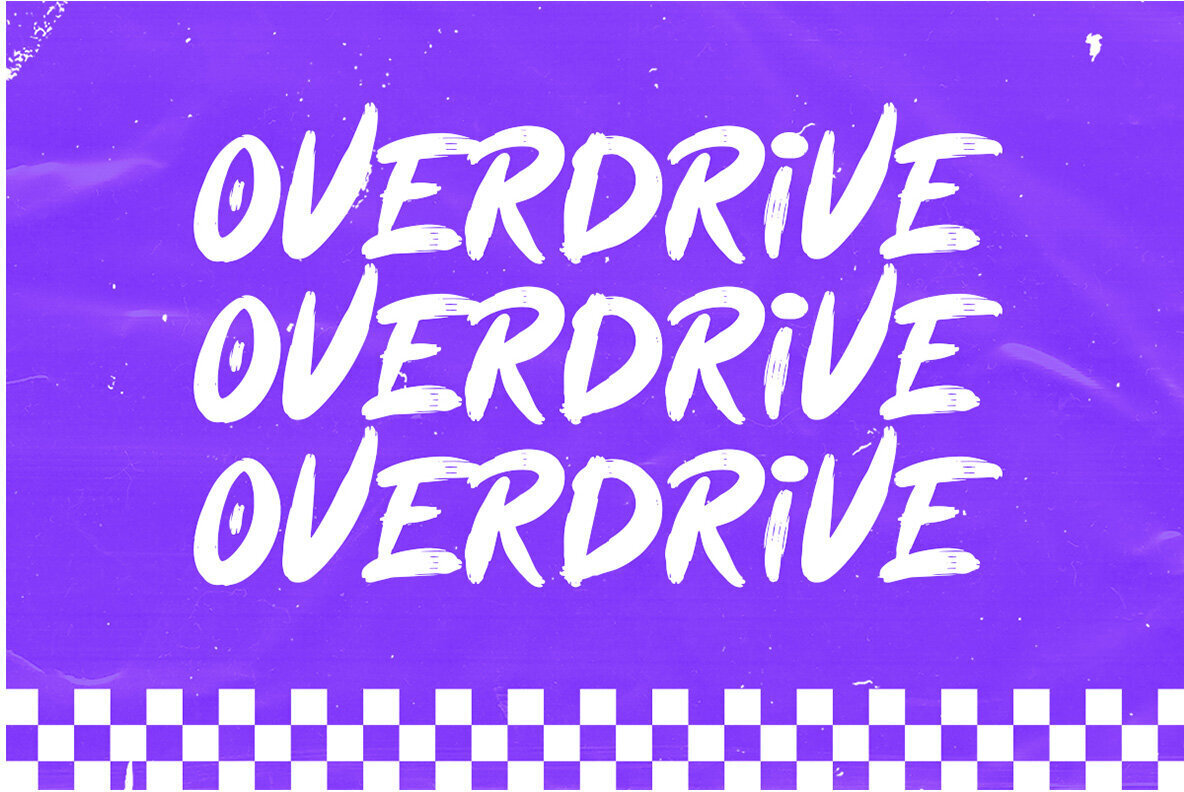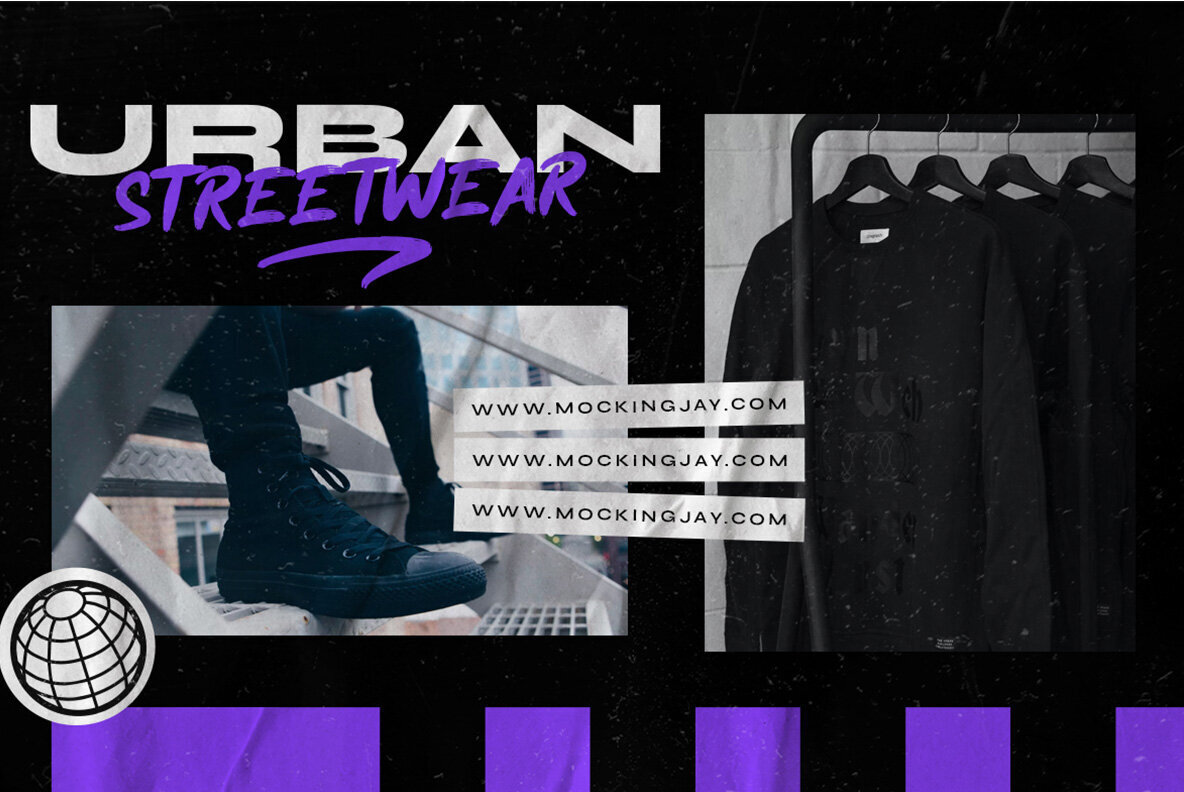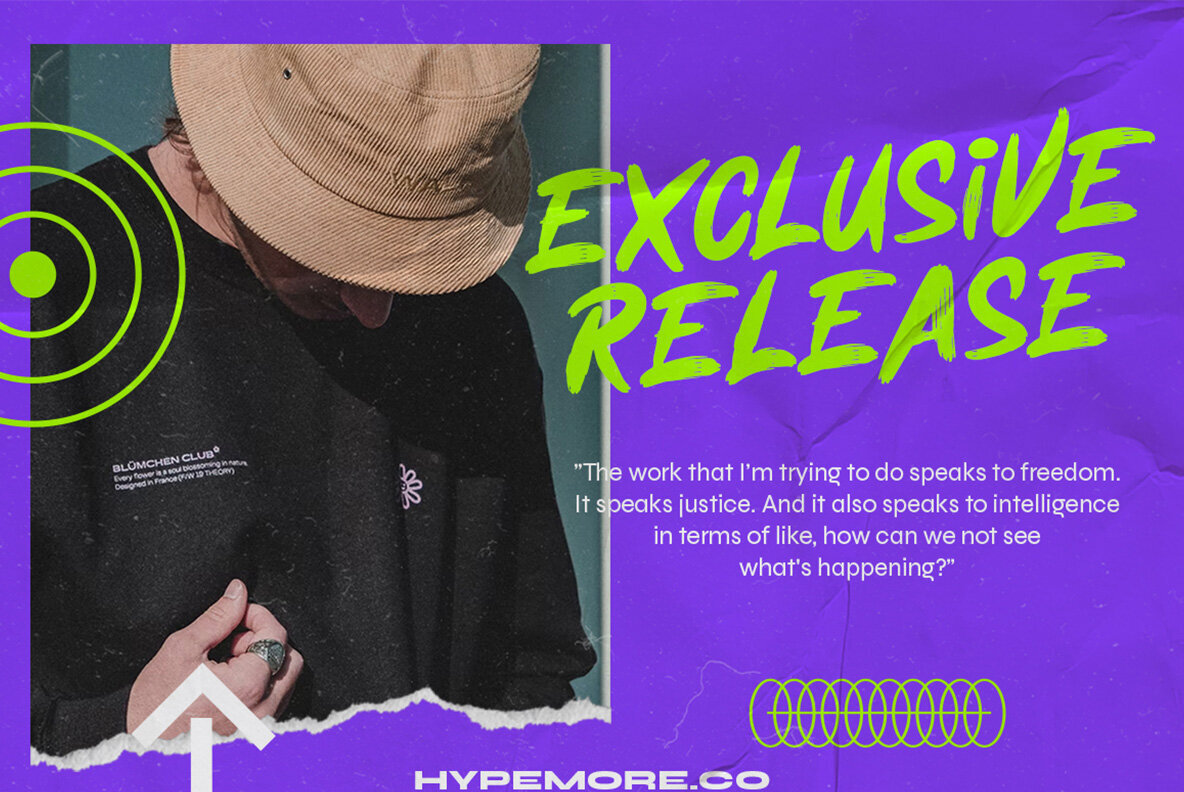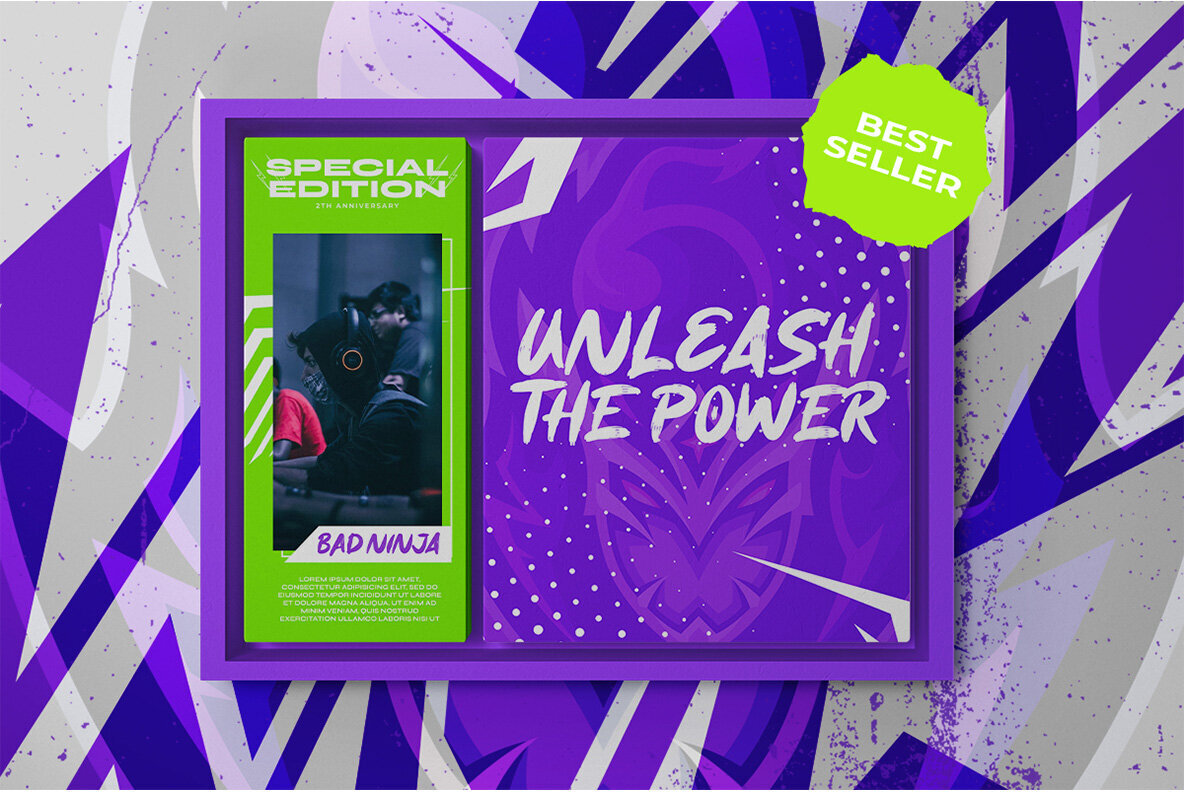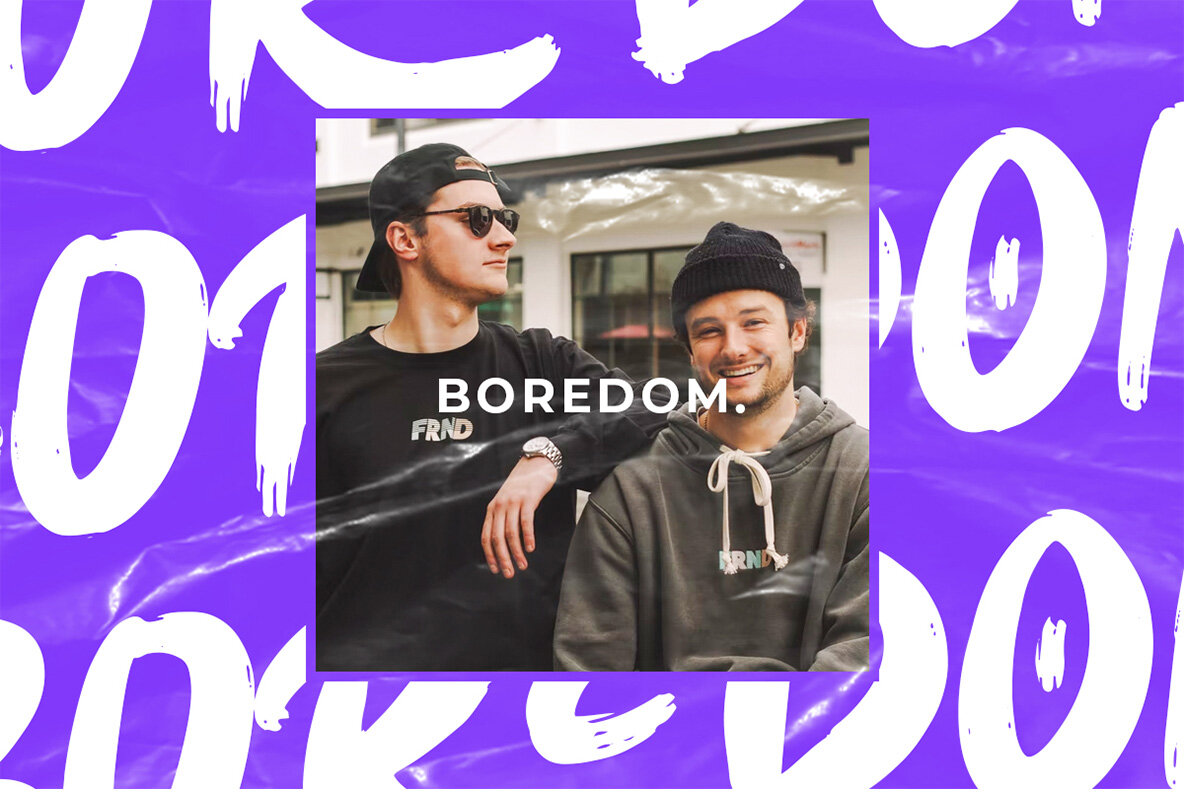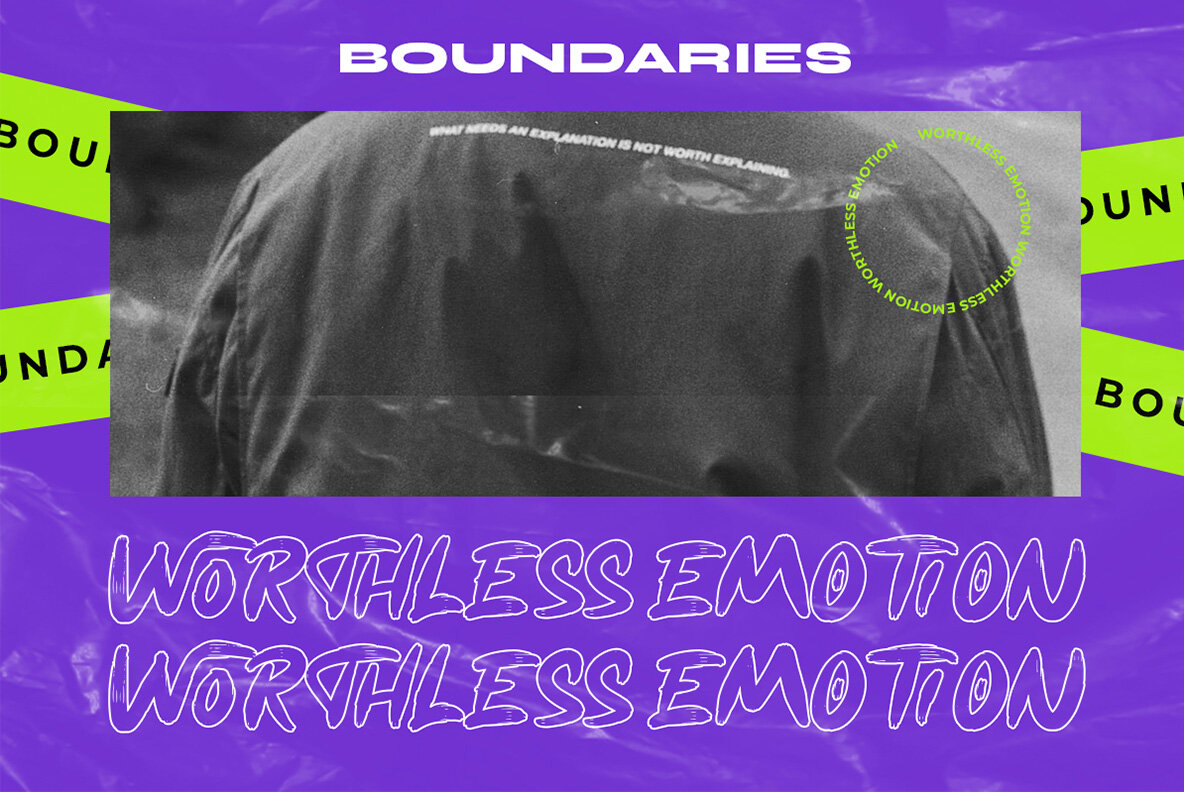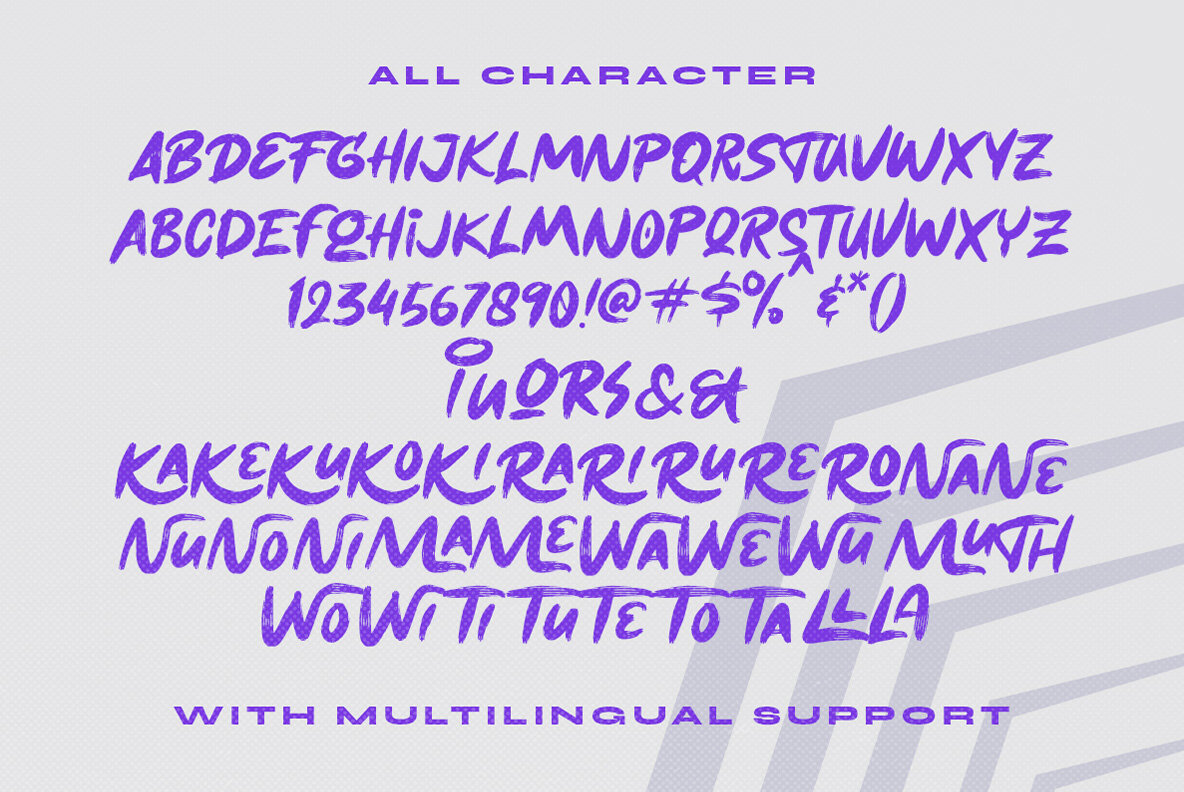
The Volgian Font
Volgian Regular
The Volgian stands out as a distinctive brush font designed for impactful headlines and striking logotypes. Its adaptable style effortlessly fits various formal settings, from logos to invitations, labels, and beyond. Whether crafting magazine spreads or designing sophisticated packaging, The Volgian provides an ideal choice for fashion, stationery, novels, and advertising purposes. Taking advantage of The Volgian's OpenType features can enhance your design experience. We suggest using Adobe applications or Corel Draw to access all glyph variations. For guidance, visit ... on using OpenType features. Enjoy your creative journey with The Volgian.The Volgian: A Brush Font for Dynamic Designs